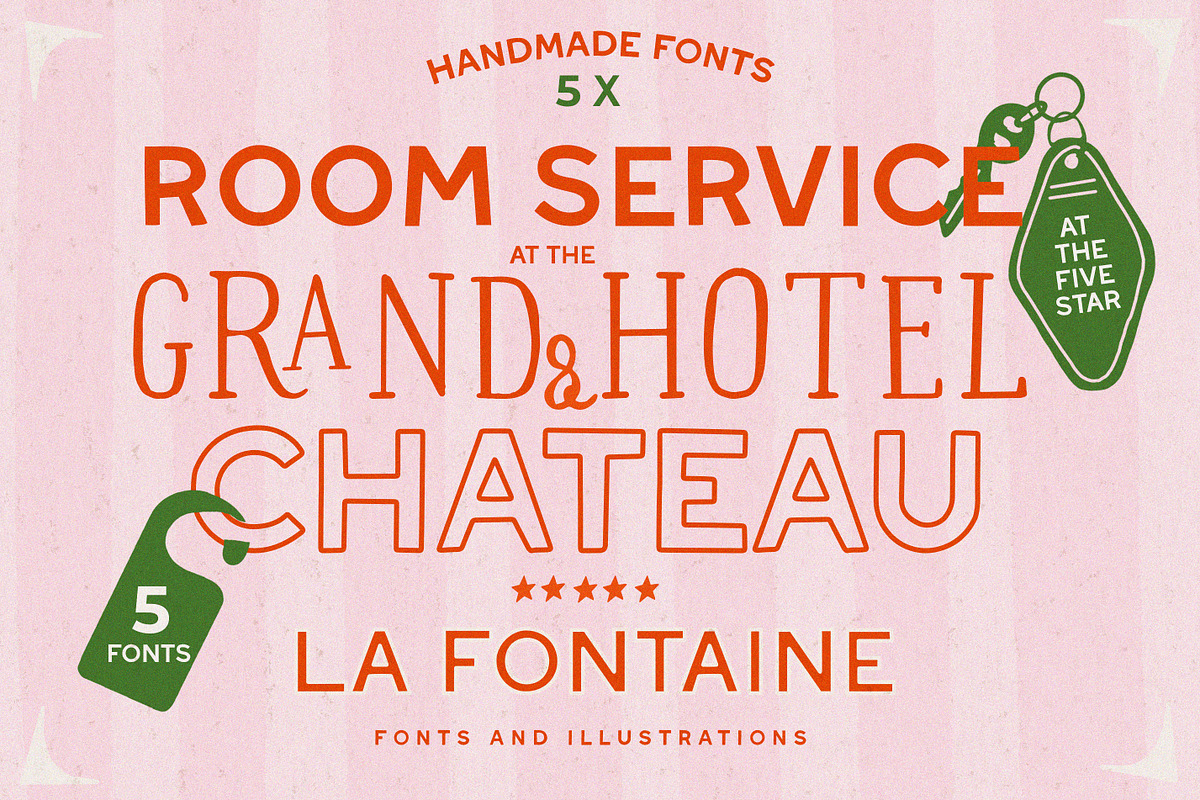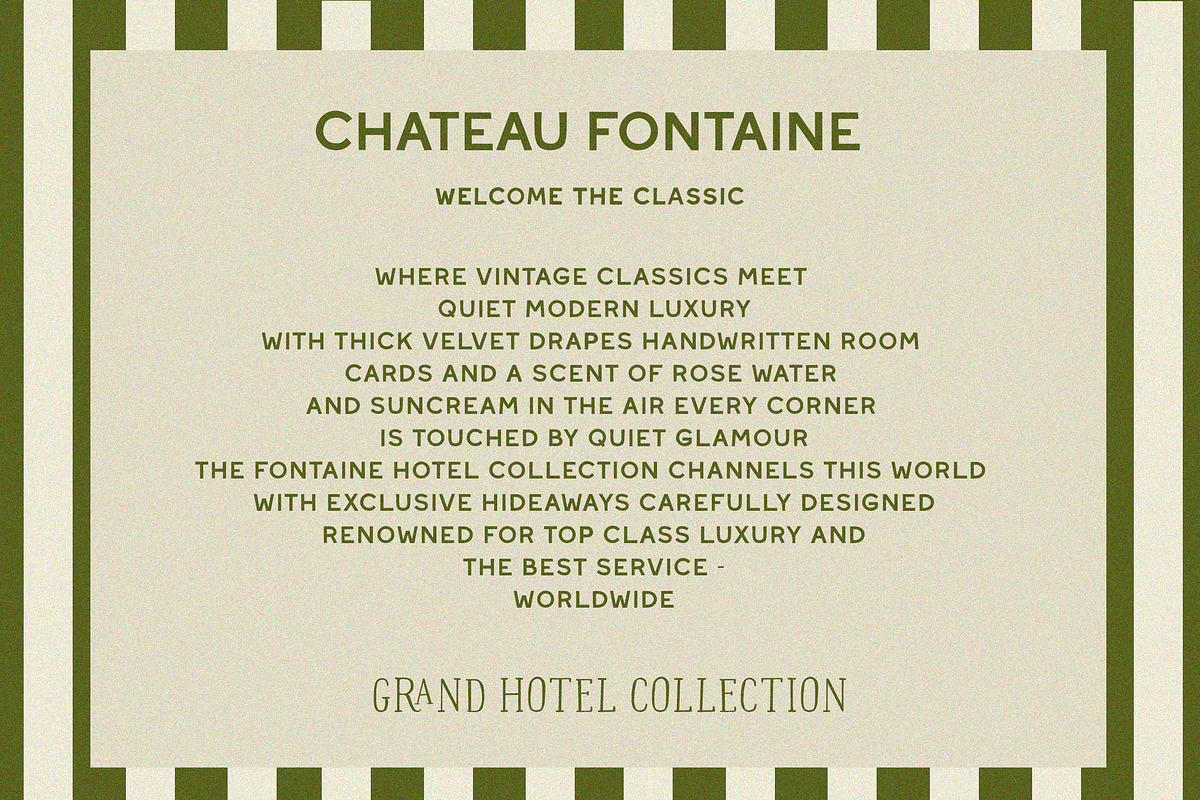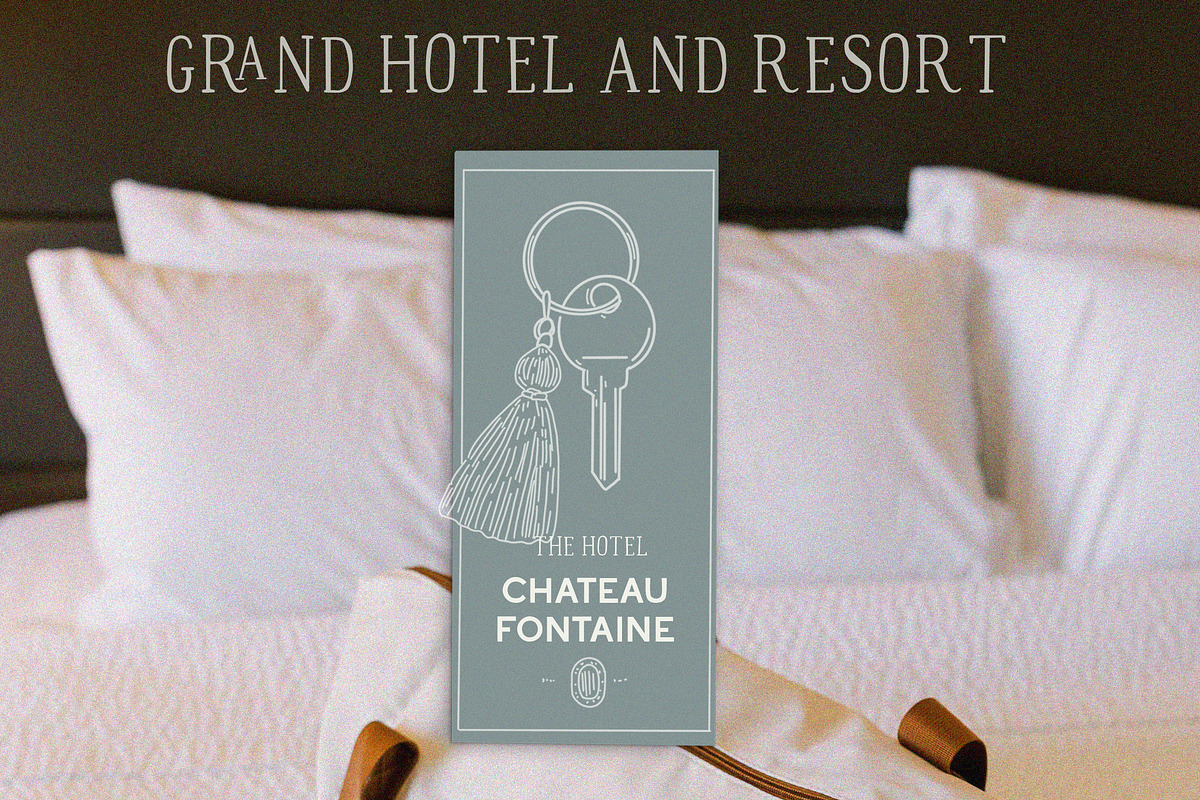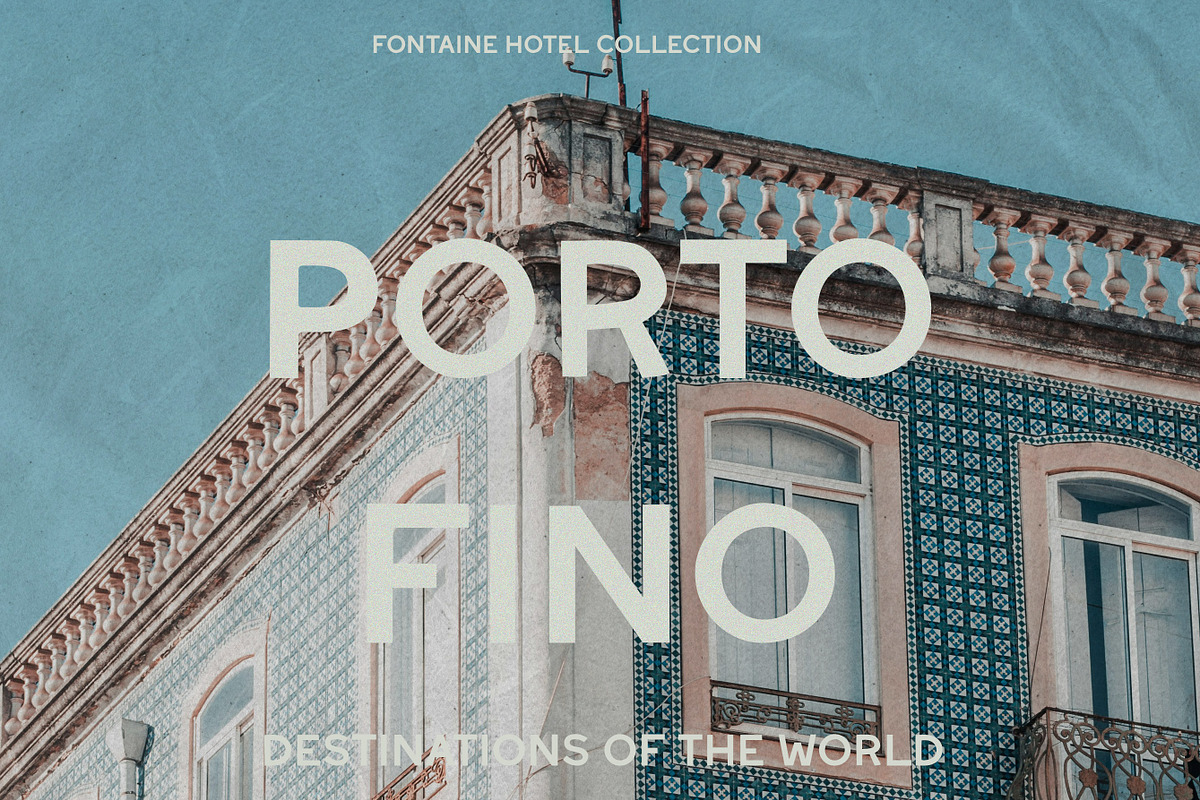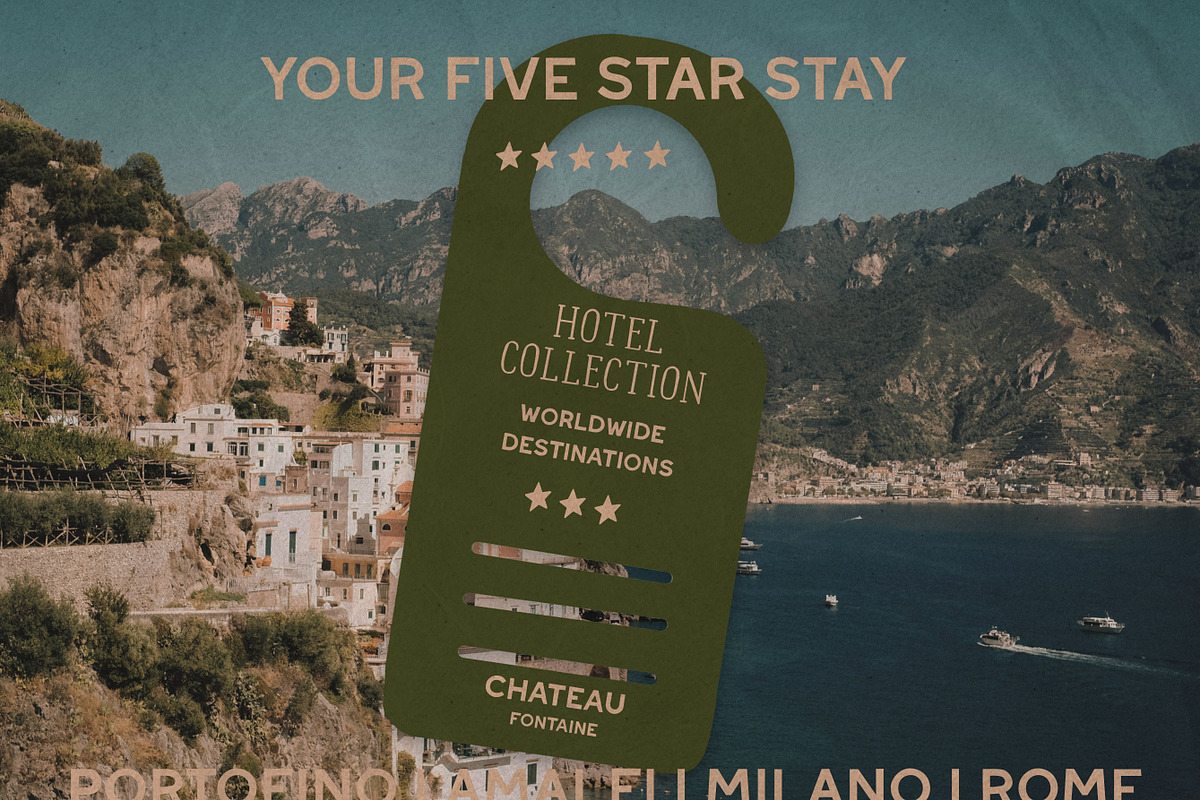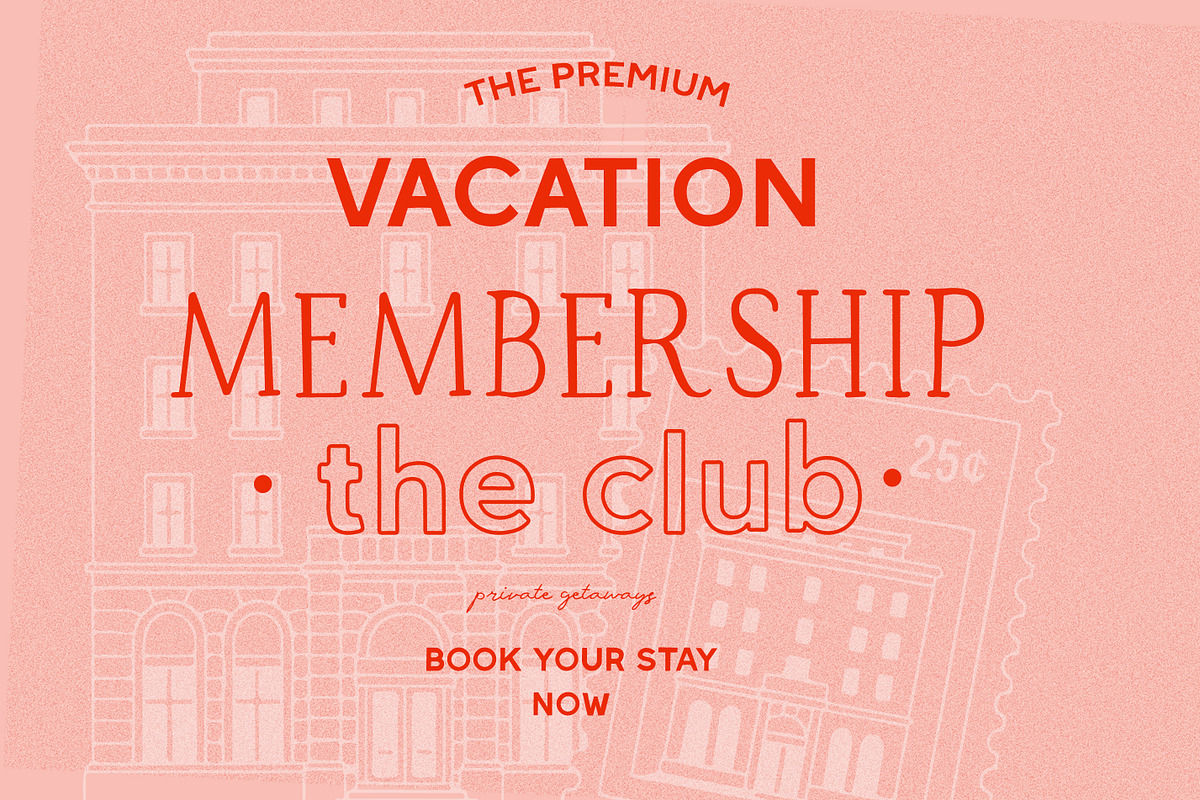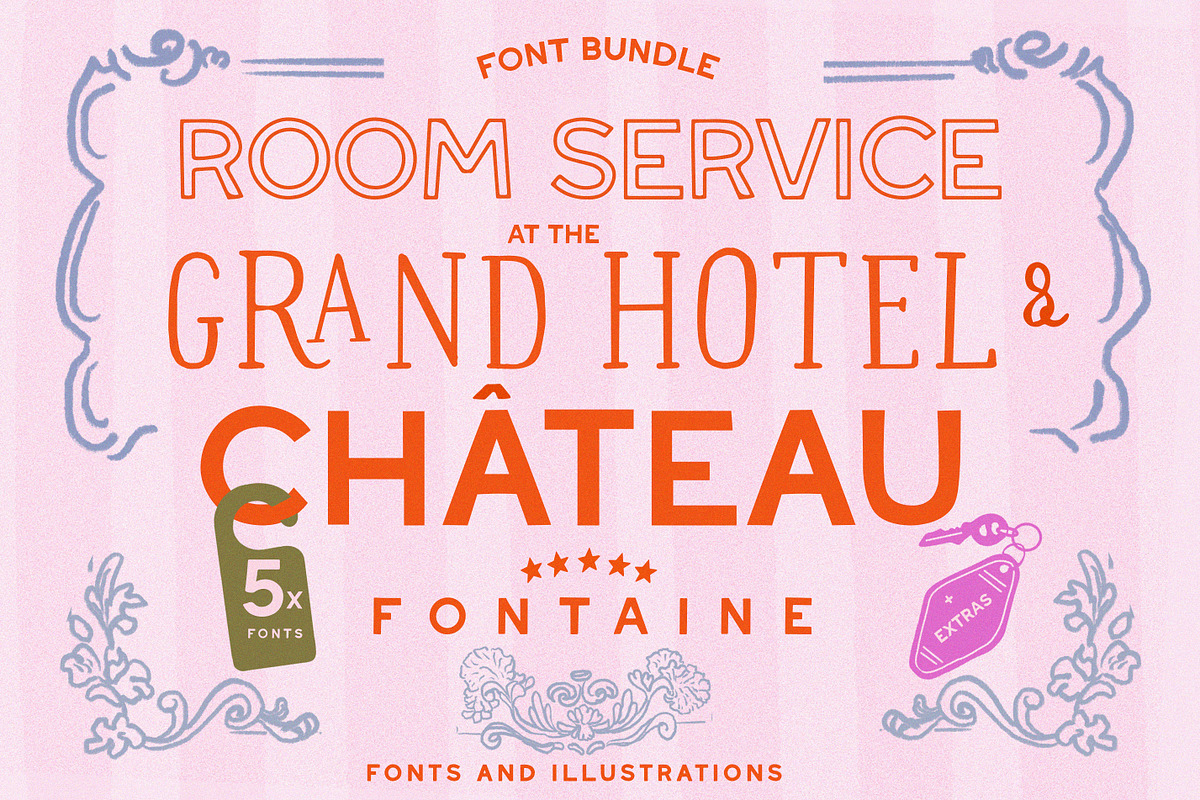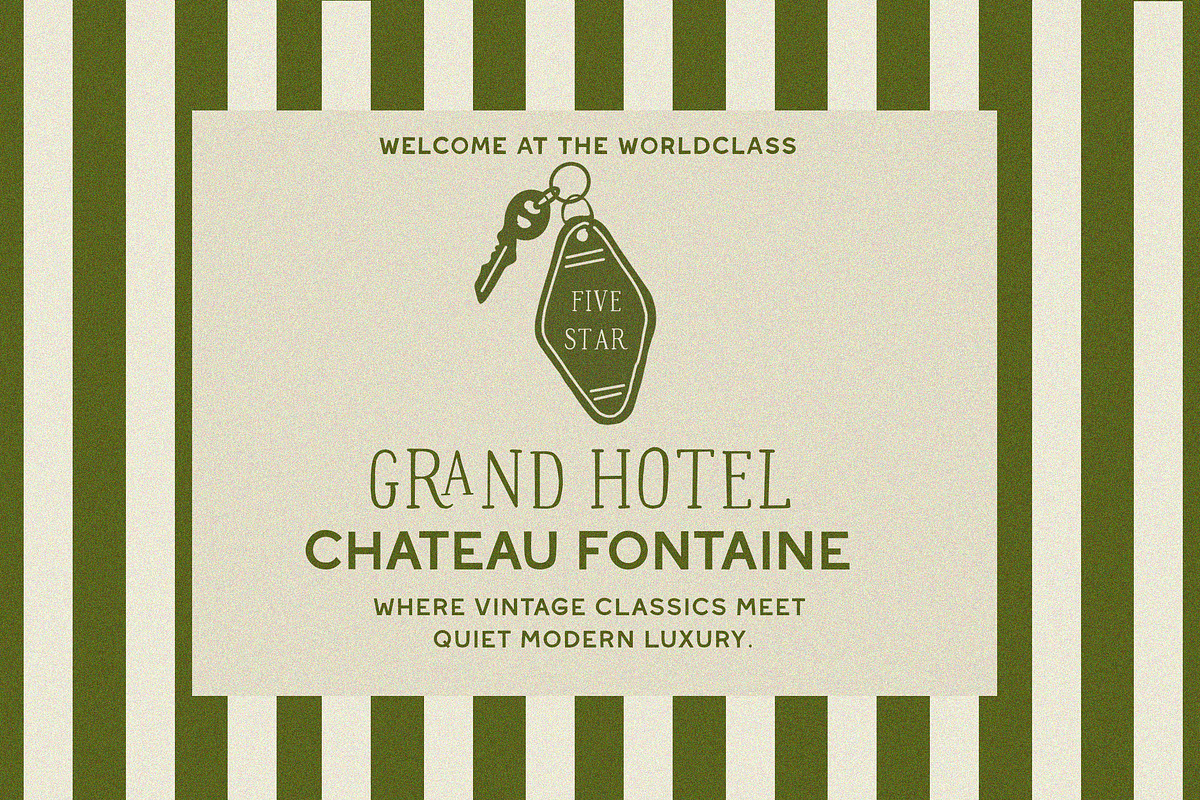
Handwritten Vintage Font Collection
5 Fonts in one: This amazing little collection comes with 5 beautifully handcrafted typefaces and hand-illustrated extras, as a heartfelt homage to 70's glam and vintage travel. ---- Destination 70's glam: The Fontaine Font Collection is a curated bundle of five handcrafted fonts, inspired by the timeless charm of vintage grand hotels, classic travel and old-world glamour. A hand-lettered serif with ligatures and symbols pairs perfectly with the most sophisticated sans collection that comes in both a handcrafted and a clean version, as well as an outline font. The hotel-themed illustrations are part of the pack and perfect for your menu design, wedding invitation and travel-themed branding. Designed for modern branding, editorial design, and high-end packaging, each typeface captures a different part of the stay - from monogrammed room keys to poolside menus and handwritten notes. What's included: - 5 Handmade Fonts in .OTF format (Chateau, Chateau Handmade, Chateau Outline, Chateau Bold & Grand Hotel) - 20 Handdrawn illustrations (png format) - 20 Prints (5000x7000px, 300dpi, Jpeg) The keys are waiting - step inside this vintage luxury hotel and let me know what you'll create! :)